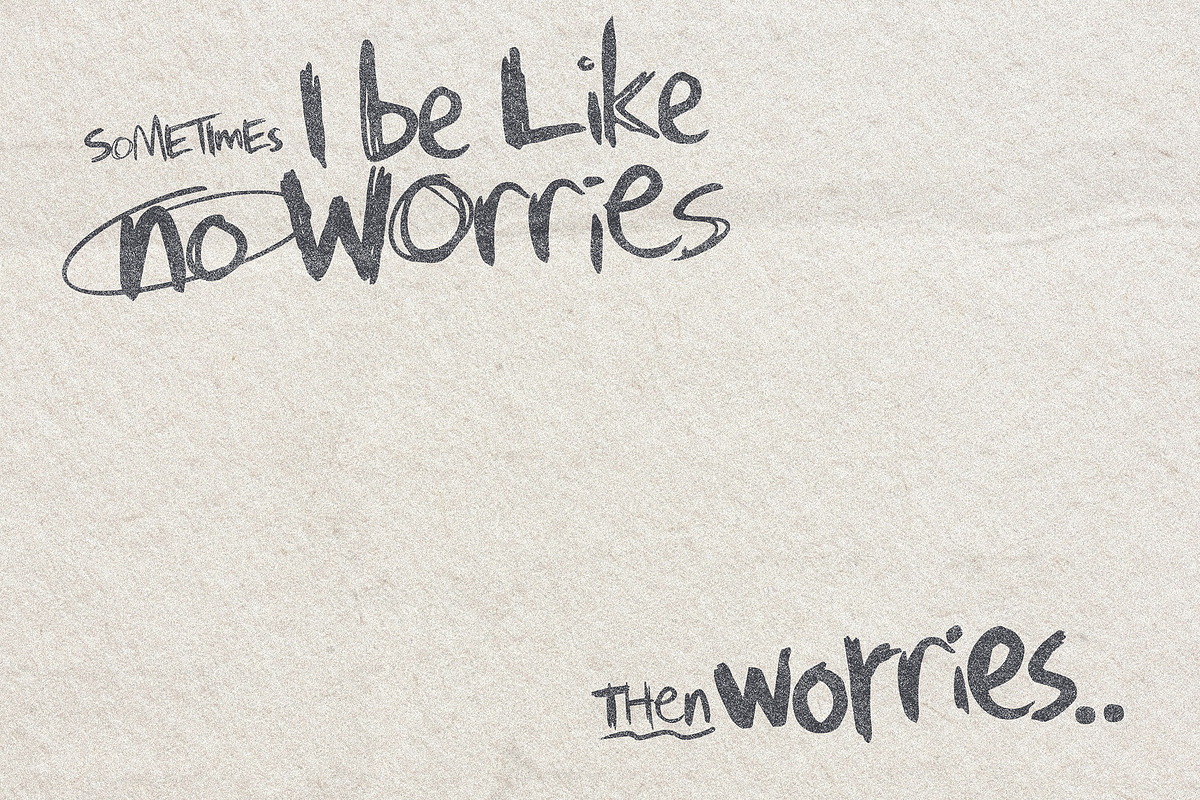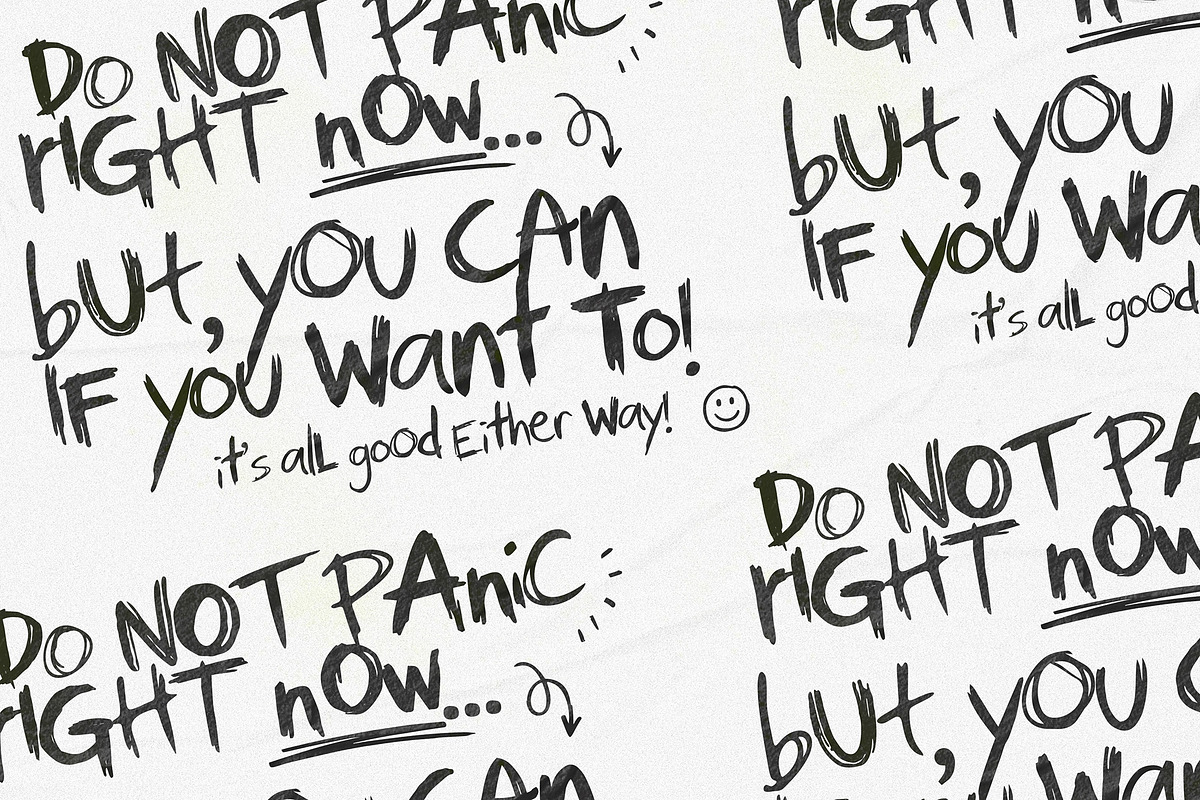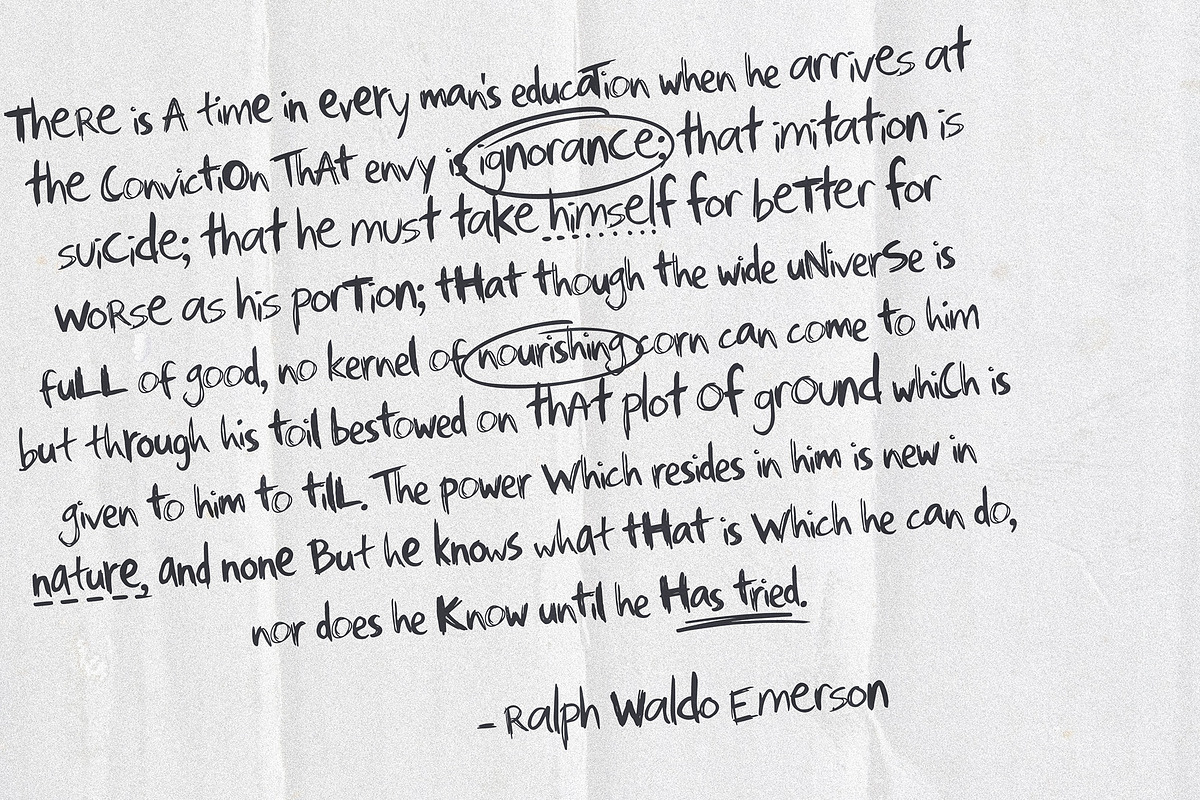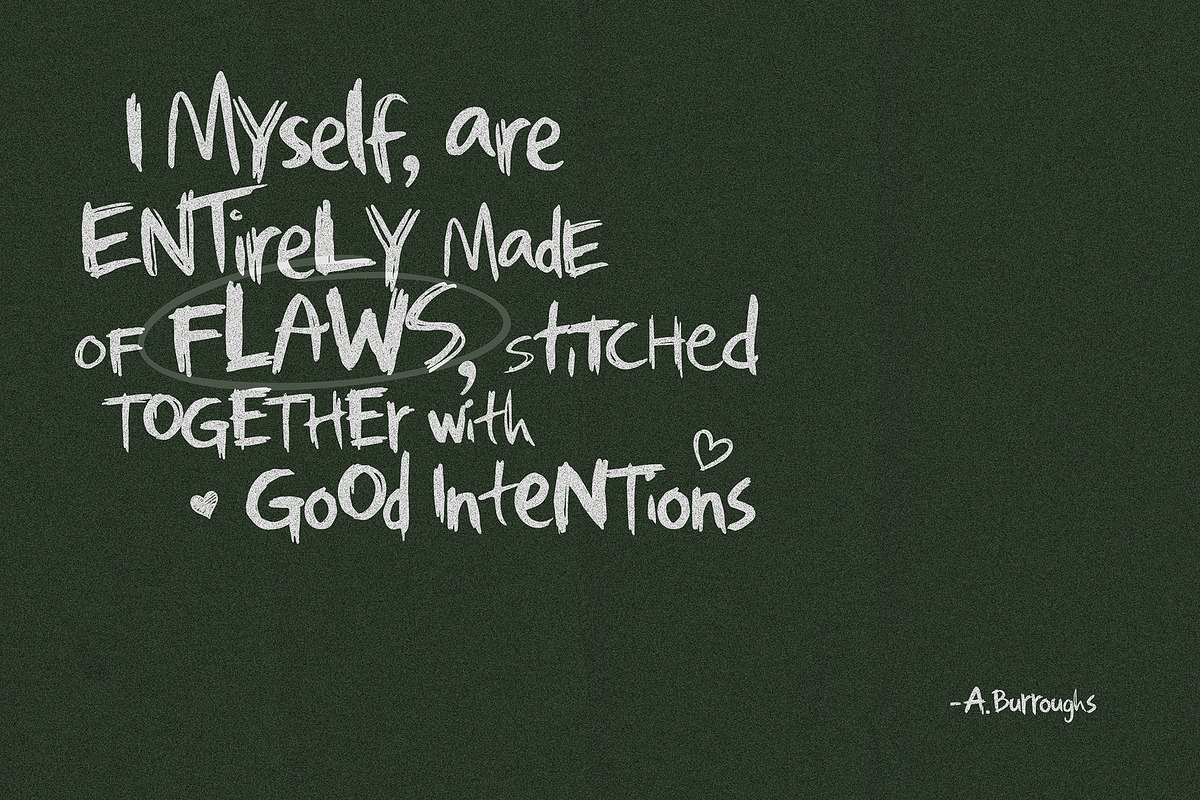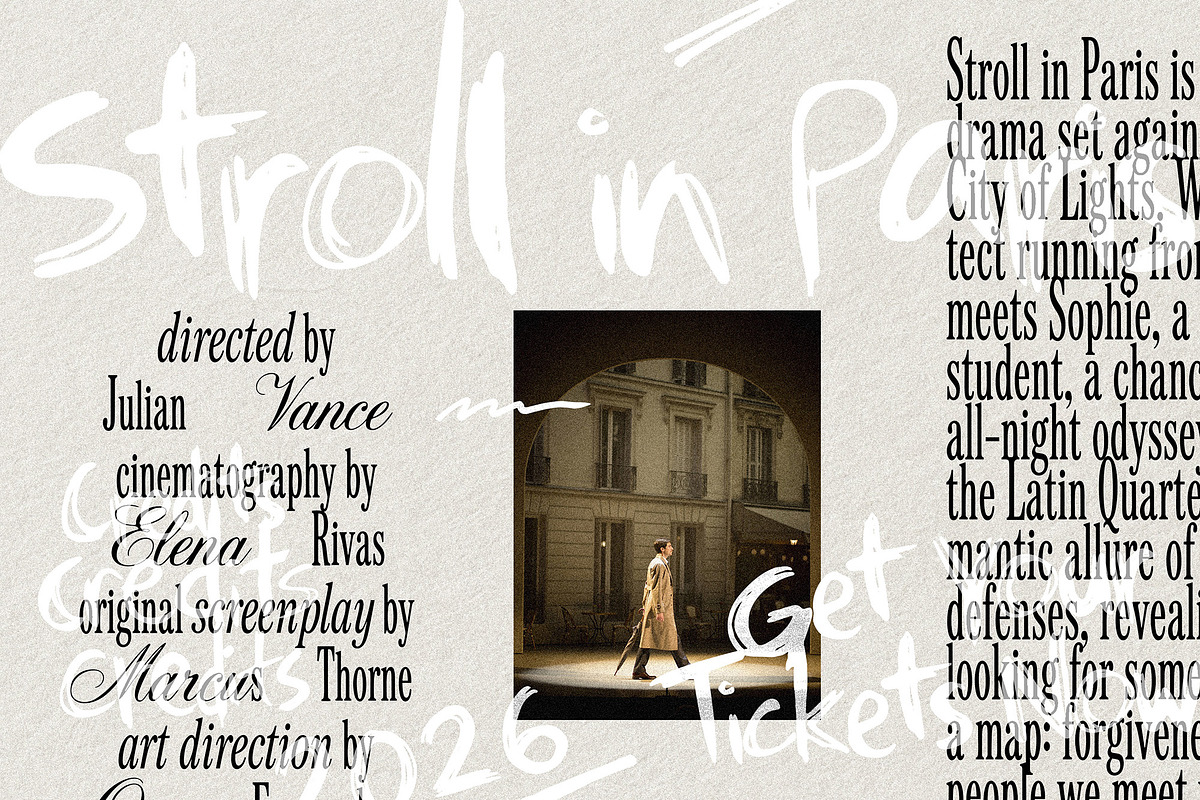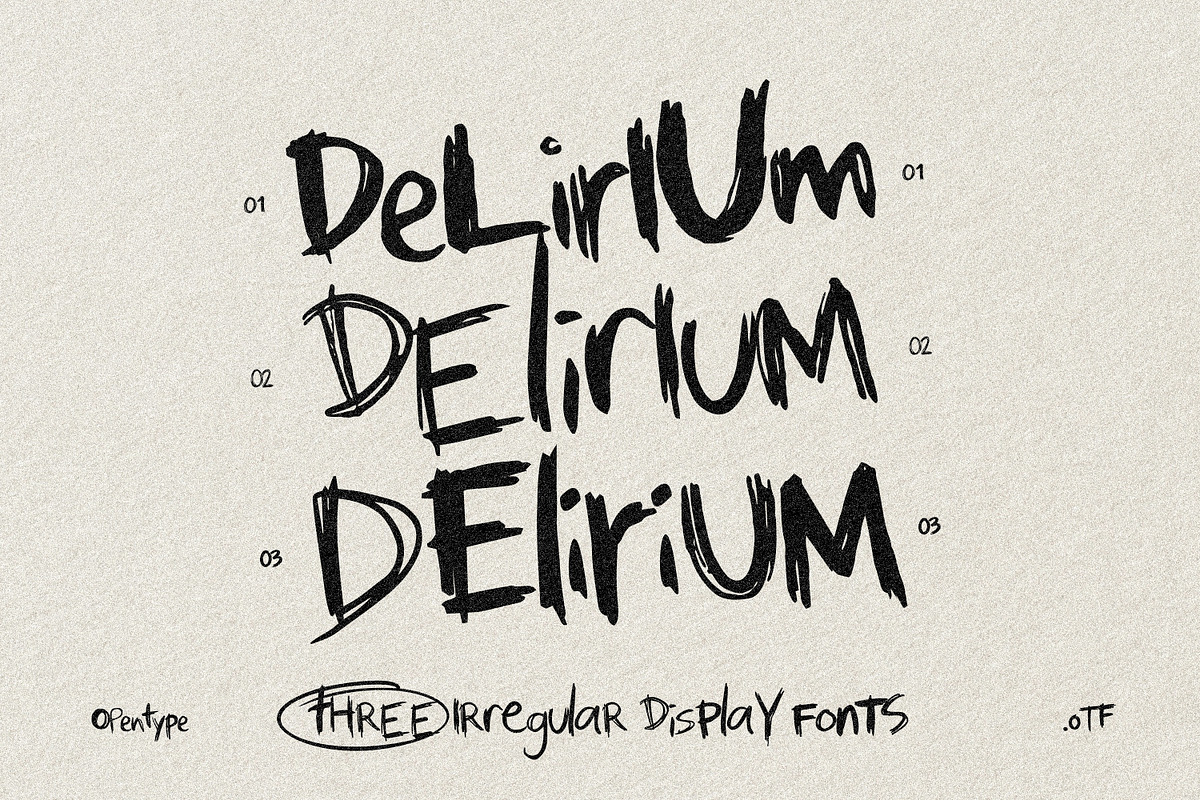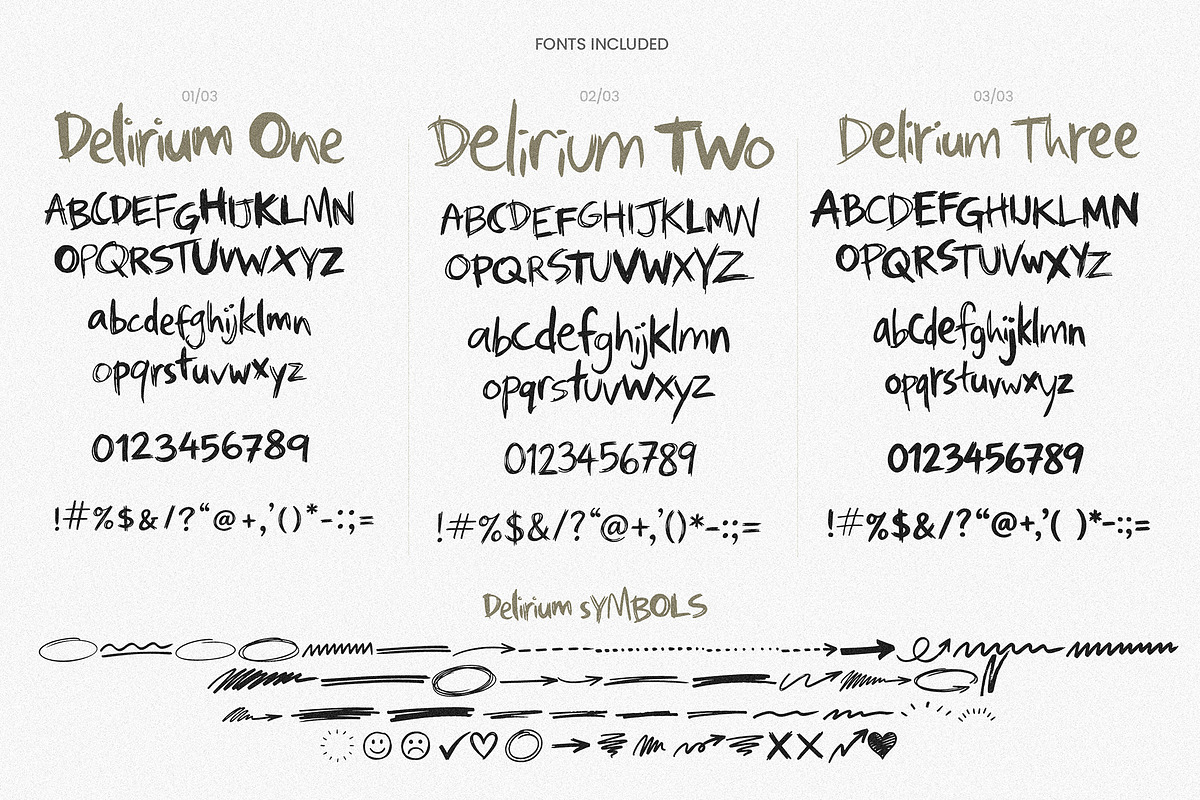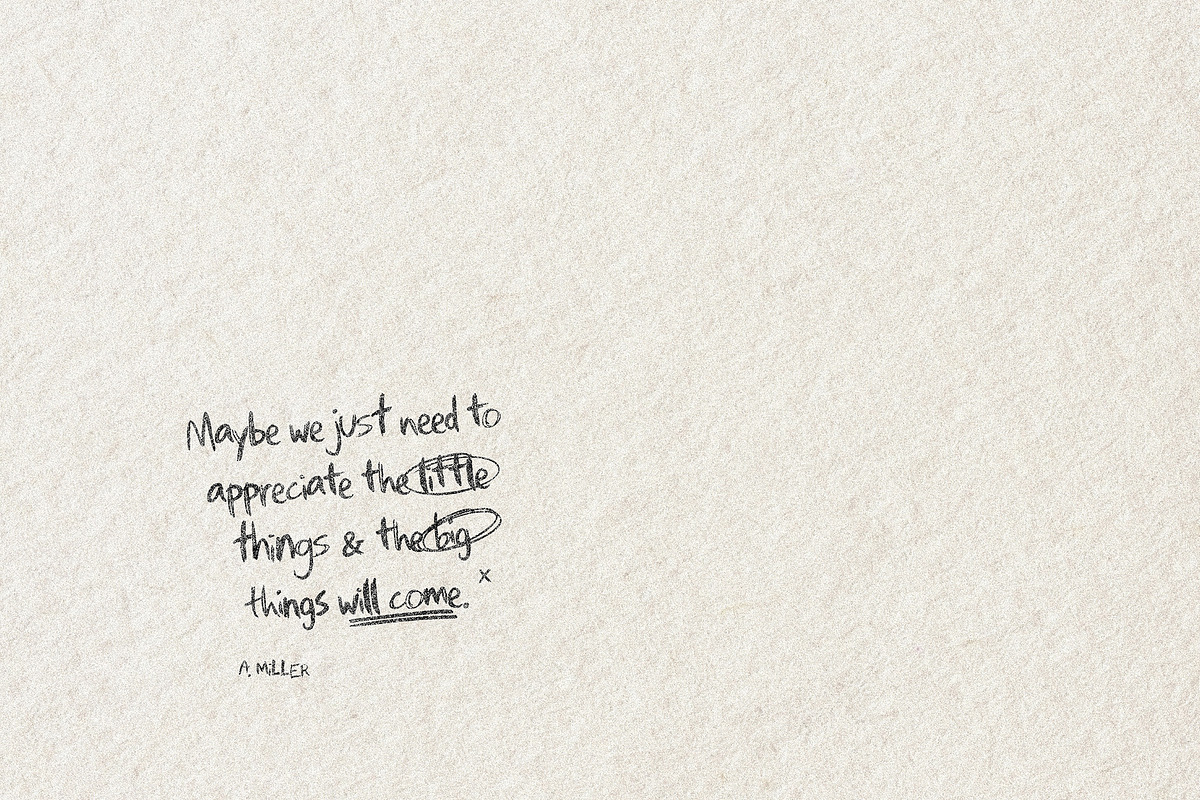
Delirium - Hand-Drawn Messy Font
Inject raw, unpolished energy into your designs with the Delirium Fonts. Delirium provides that authentic, "scratched-into-a-desk" and messy aesthetic. This isn't your standard, clean typography—this is a collection of three distinct, irregular display fonts designed to look frantically hand-drawn. Perfect for projects that need to have a rebellious hand-drawn ink vibe.
👉This Font Is Perfect For:
- Album Art & Gig Posters
- Horror Movie Titles
- Zines & Editorial: Give your underground magazine or art zine a chaotic, textured headline style.
- Social Media Graphics: Stop the scroll with bold, unconventional text and quotes